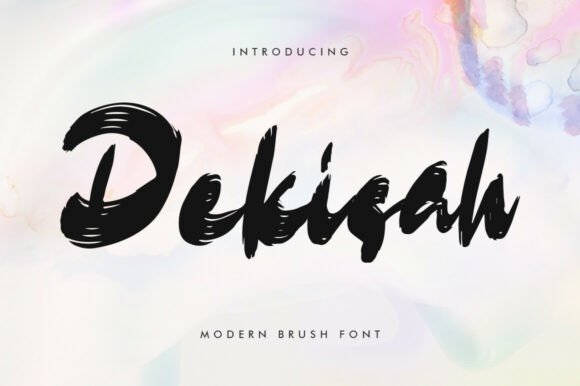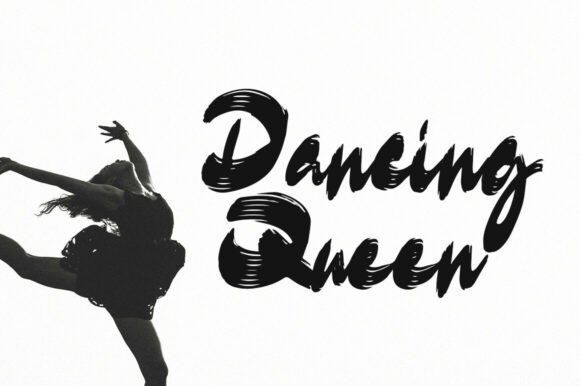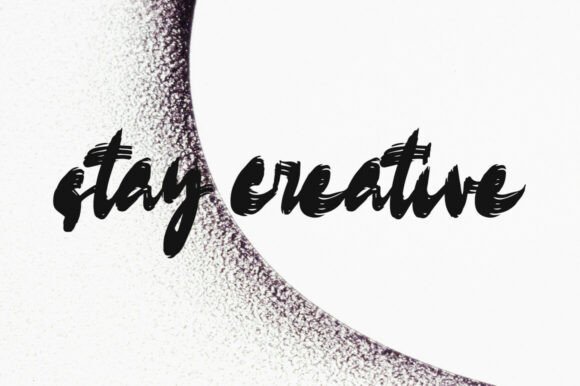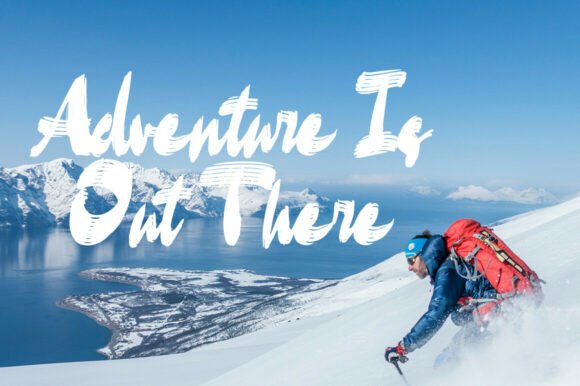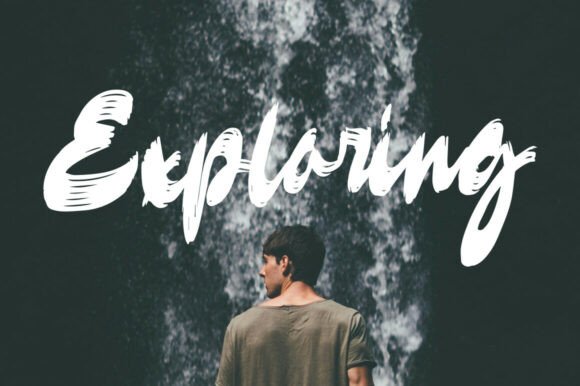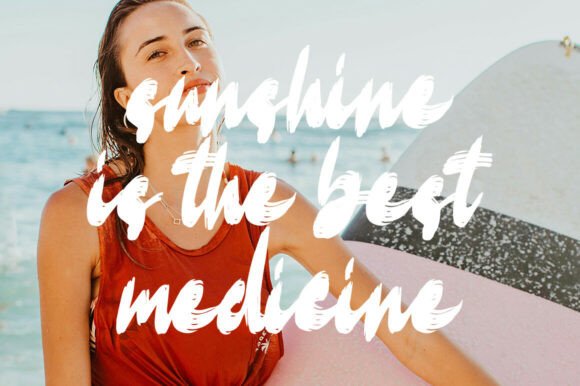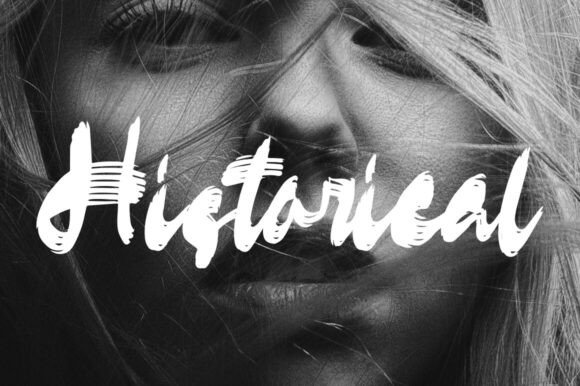
Unleashing the Power of Hand-Drawn Typography
Have you ever been stuck on a design project, searching for the perfect font to capture the essence of your creative vision? You’re browsing through font libraries, scrolling through design boards, and experimenting with different styles, but nothing seems to fit. That’s when you stumble upon a font that makes your design come alive – a font that embodies the raw energy and spontaneity of hand-painted lettering.
Enter the Dekisah Font, a bold and expressive modern brush font that brings a breath of fresh air to your designs. This versatile font is perfect for creative projects that demand attention, from poster designs and streetwear branding to album covers and social media ads.
As a designer, you know the value of a font that can elevate your work and leave a lasting impression. Dekisah Font is that game-changer, offering a unique combination of style, attitude, and visual impact that’s sure to make your designs stand out from the crowd.
Dekisah Font Key Features
- Font Style: Dekisah Font is a unique and elegant script font, suitable for various design applications.
- Character Set: The font includes a comprehensive set of characters, including Latin, Cyrillic, and Greek alphabets, as well as punctuation and symbols.
- Unique Characteristics: Dekisah Font features a distinctive, flowing script design with subtle connections between letters, making it ideal for creative and artistic applications.
Dekisah Font Review
As a designer, I had the chance to work with Dekisah Font, and I’d like to share my honest review. Here’s what I think.
Dekisah Font has some great qualities that make it a nice addition to any design project. Here are a few things that stood out to me:
- Unique Character: Dekisah Font has a distinctive and modern aesthetic that sets it apart from other fonts. It’s perfect for designers looking to add some personality to their work.
- Legibility: The font is highly legible, even at small font sizes, making it suitable for body text and headlines.
- Customization Options: Dekisah Font offers a range of customization options, including font weights, sizes, and colors, giving designers a lot of flexibility.
While Dekisah Font has its strengths, it also has some limitations that designers should be aware of:
- Limited Kerning: The font’s kerning could be improved, particularly for certain letter combinations.
- No Italic or Oblique: Dekisah Font only comes in regular and bold weights, which might limit its use in certain design contexts.
- Not Ideal for Small Text: While Dekisah Font is legible, it’s not the best choice for small text sizes due to its relatively low x-height.
Overall, Dekisah Font is a solid choice for designers looking for a modern, legible font with a unique character. While it has some limitations, it’s still a great option for many design projects.
Tip: Use Dekisah Font for creative and artistic designs, such as invitations, posters, and social media graphics.
Tip: Use Dekisah Font for creative and artistic designs, such as logos, icons, and typography-based designs.
Tip: Use Dekisah Font for creative and artistic presentations, such as slides and reports.
The Dekisah Font is suitable for various creative and artistic designs, including:
- Invitations and event graphics
- Social media graphics and ads
- Typography-based designs and art